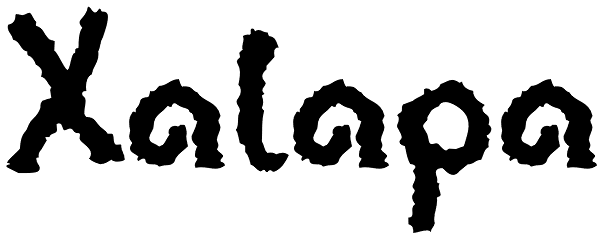
Xalapa
Xalapa is a wavy and rugged script. The font comes packed with OpenType alternates and ligatures. Included are fifteen titling alternates, small caps, oldstyle figures and a full set of stylistic alternates to ensure that your designs are unique...